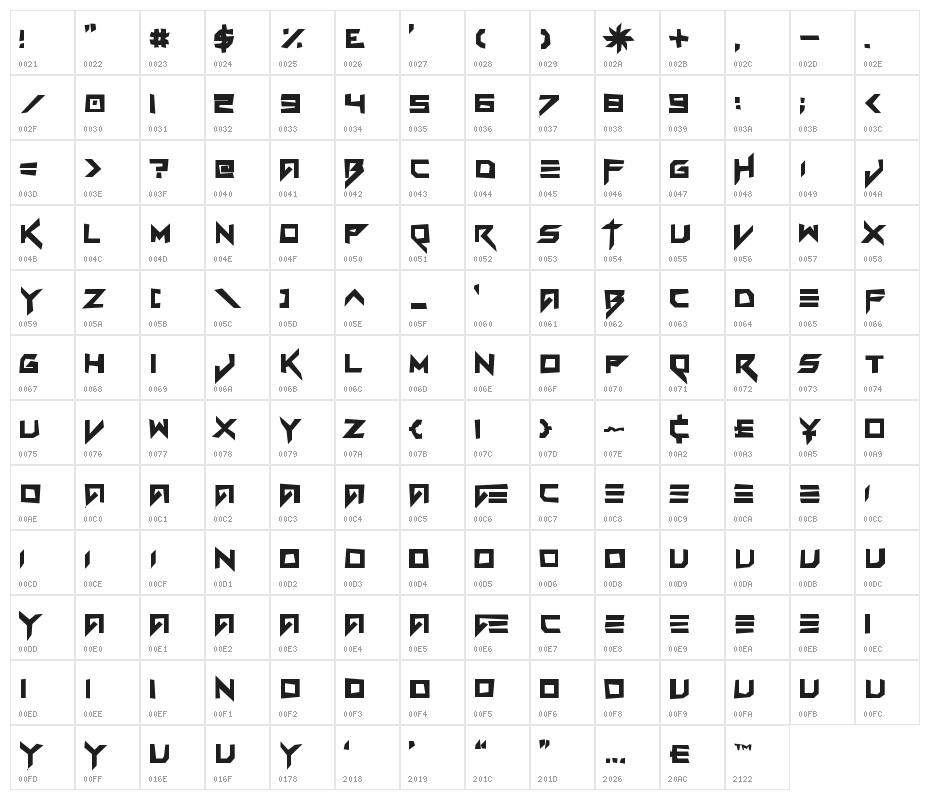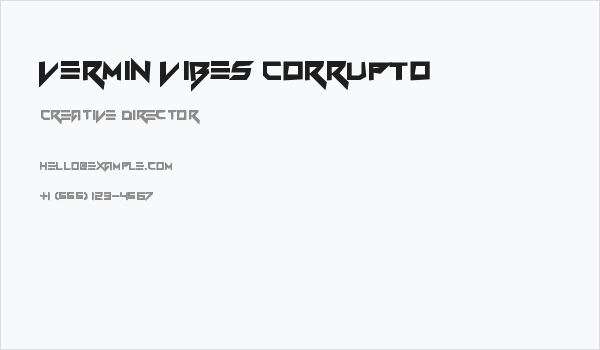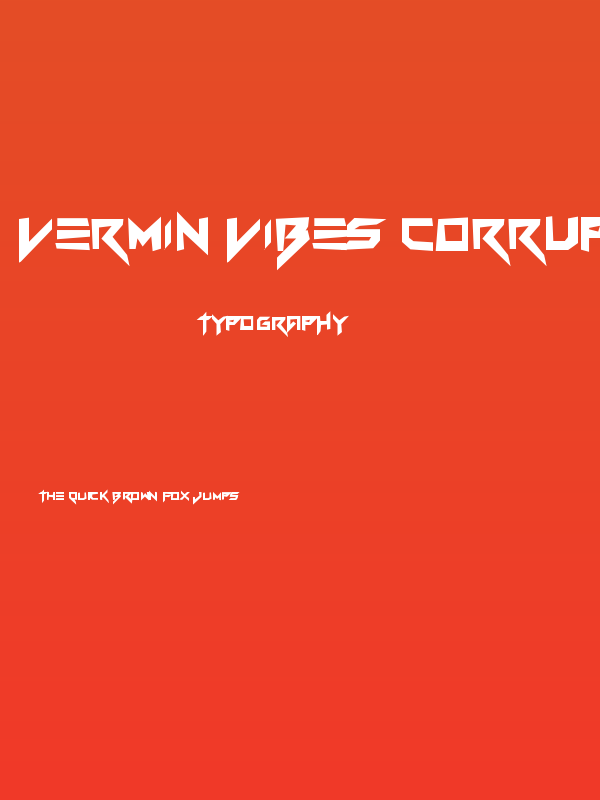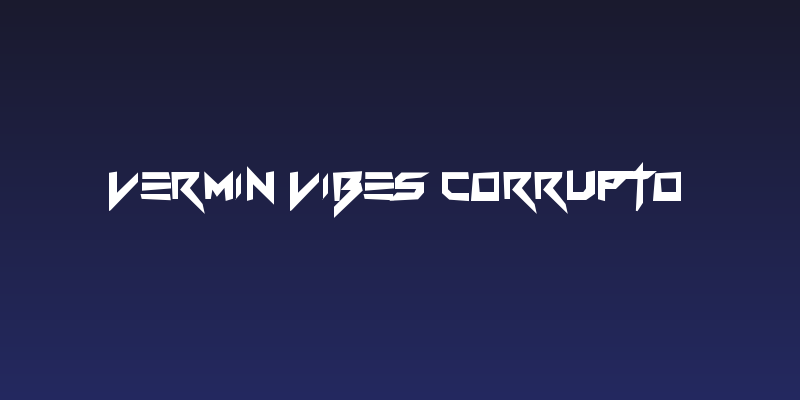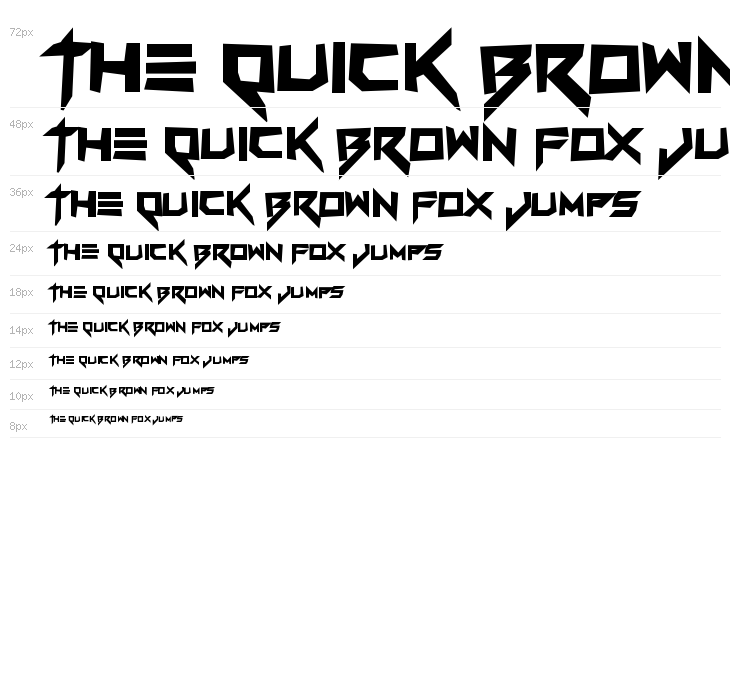
Vermin Vibes Corrupto Font
Vermin Vibes Corrupto Description
This font features a bold and aggressive design with sharp, angular edges and a distinct geometric style. The characters are heavily stylized, giving off a futuristic and edgy vibe. The uppercase and lowercase letters maintain a consistent angular theme, with each character appearing as though it has been carved from a solid block. The numbers and special characters follow the same design principles, ensuring uniformity across the font. The overall appearance is striking and memorable, making it suitable for projects that require a strong visual impact.
| Proposed Projects | Ideal for video game titles, movie posters, music album covers, and branding for edgy or modern products. |